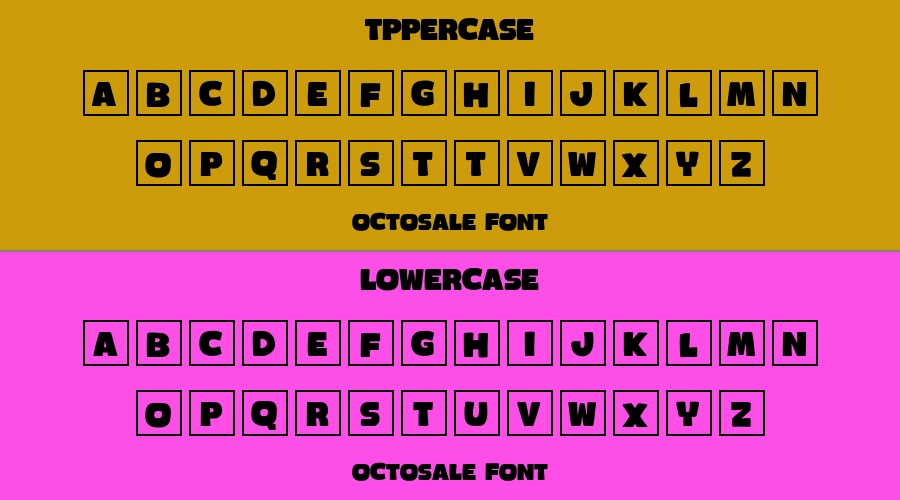
About Octosale Font
Octosale Font embodies typographic excellence through its masterful combination of contextual forms and tradition. Created for motion graphics, this typeface delivers exceptional precision and market relevance across all applications. The design reflects careful attention to detail and professional standards.
Advanced capabilities include distinctive ball terminals and versatile period ligatures, giving designers creative control. When used in digital platforms, Octosale Font exhibits remarkable reproduction fidelity. The harmonious balance between descender depth and technical innovation sets this typeface apart.